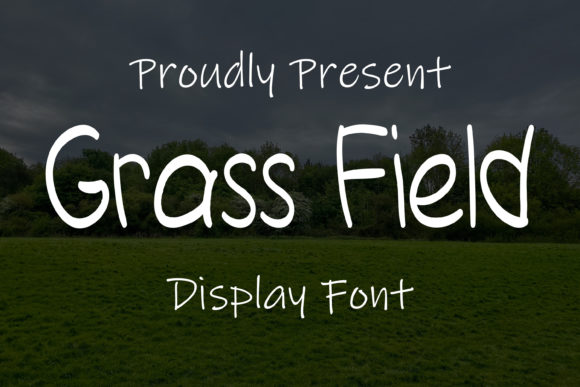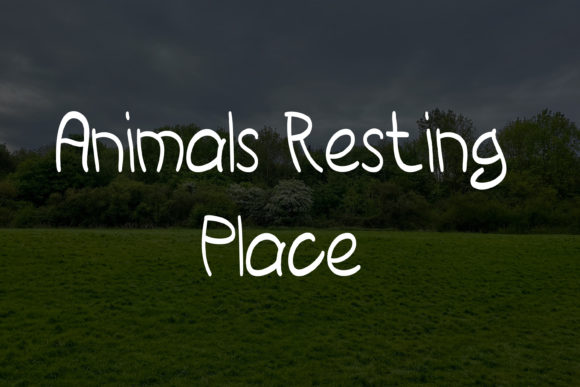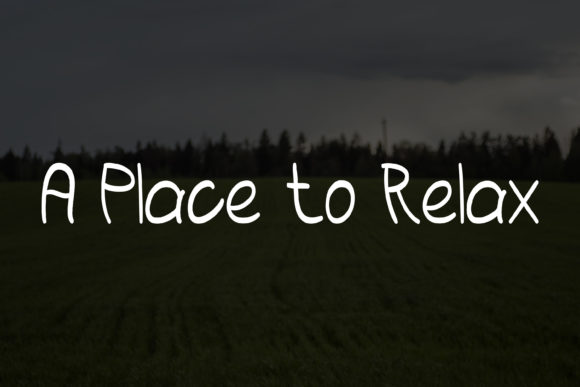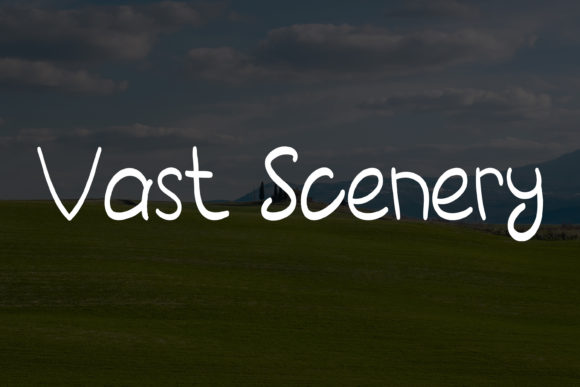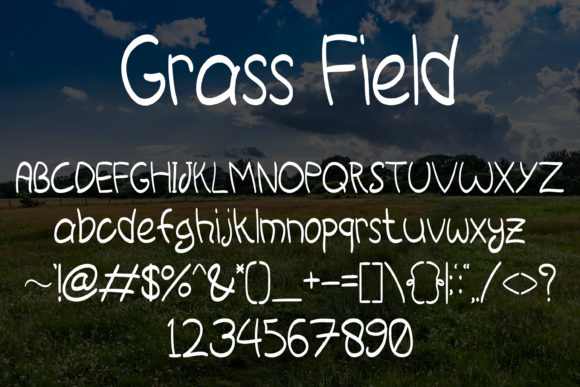
Grass Field Font
About Grass Field Font
Grass Field is a simple, quirky and adaptable handwritten font. Its informal style and casual vibe will make this font a go-to choice for each of the creations that require a relaxed touch.